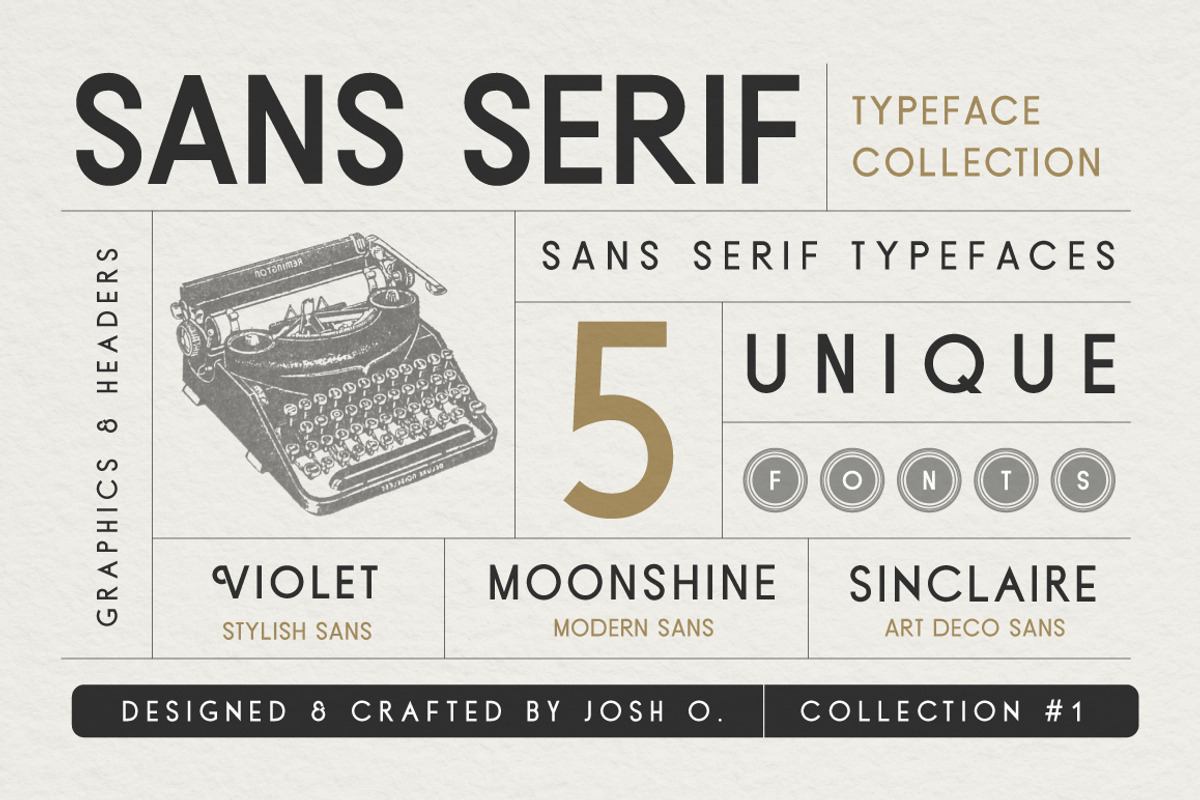
You must purchase these fonts for commercial use. However, you can download Sans Serif Typeface Collection Free Download for testing purposes. The Sans Serif Typeface Collection offers a variety of clean, modern sans-serif fonts that are perfect for a wide range of design projects, from branding and logos to websites and marketing materials.
This collection includes multiple weights and styles, providing versatility for both large headings and body text. Whether you’re designing for a minimalist brand, a tech startup, or a contemporary magazine, these fonts will help you create sleek, professional designs that are easy to read and visually appealing.